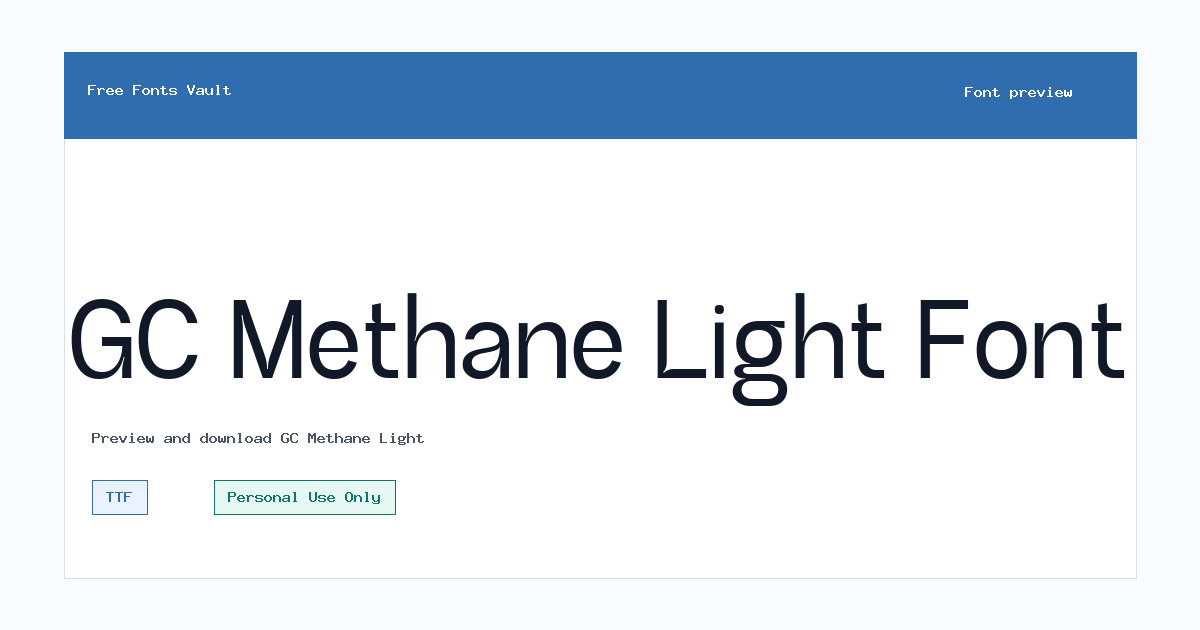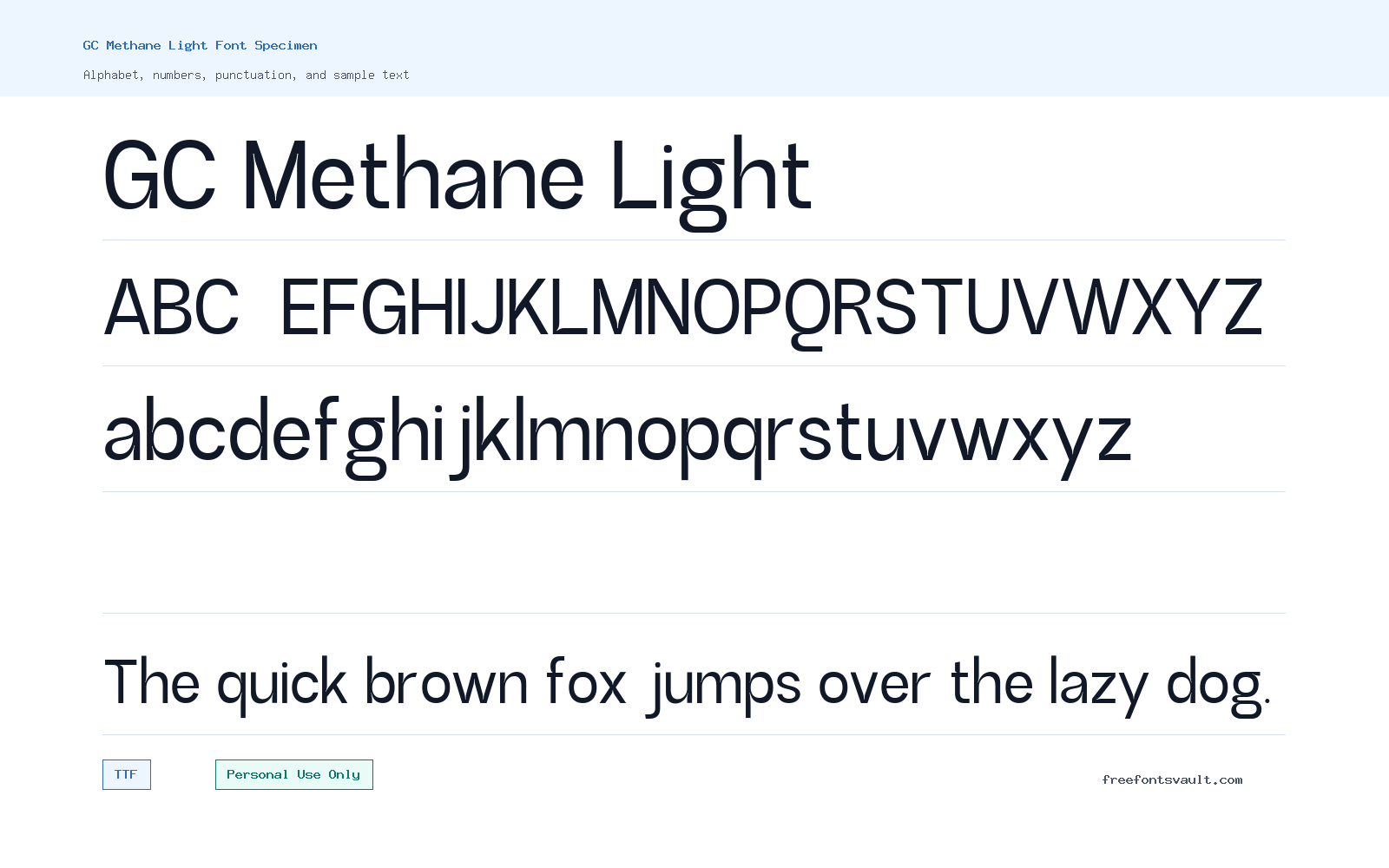
GC Methane Light
GC Methane Light font preview showing the family name
GC Methane Light Font
GC Methane Light font specimen showing alphabet, numbers, and sample text
• Designer Ken Priska Dewirani of Glyphonic
• Foundry Glyphonic
GC Methane Light font.
GC Methane Light is a light-weight sans serif font from the GC Methane family, offered as a TTF demo font for personal-use projects. Its thin, clean appearance makes it a good choice to test when you need a simple modern look without heavy visual weight.
About GC Methane Light
GC Methane Light has a restrained sans serif style with a 300 weight, so it is better suited to clean headings, short labels, preview graphics, and layout tests than dense body copy. The light weight gives text an airy feel, but it also means small sizes can lose strength on busy backgrounds or low-resolution screens. Use the preview tool to check spacing, thin strokes, and legibility with your own words before downloading.
• Light 300-weight sans serif style for clean, low-weight typography.
• Minimal headings, clean labels, presentation concepts, and interface-style previews.
The designer is listed as Ken Priska Dewirani of Glyphonic, with Glyphonic also listed as the foundry.
What kind of font is GC Methane Light?
It is a light-weight sans serif font. The listed weight is 300, which gives it a thin and clean appearance.
Where does GC Methane Light work best?
It is best for short text such as headings, titles, labels, mockups, and personal graphics. For long paragraphs, pair it with a more readable body font.
Who designed GC Methane Light?
The designer is listed as Ken Priska Dewirani of Glyphonic.